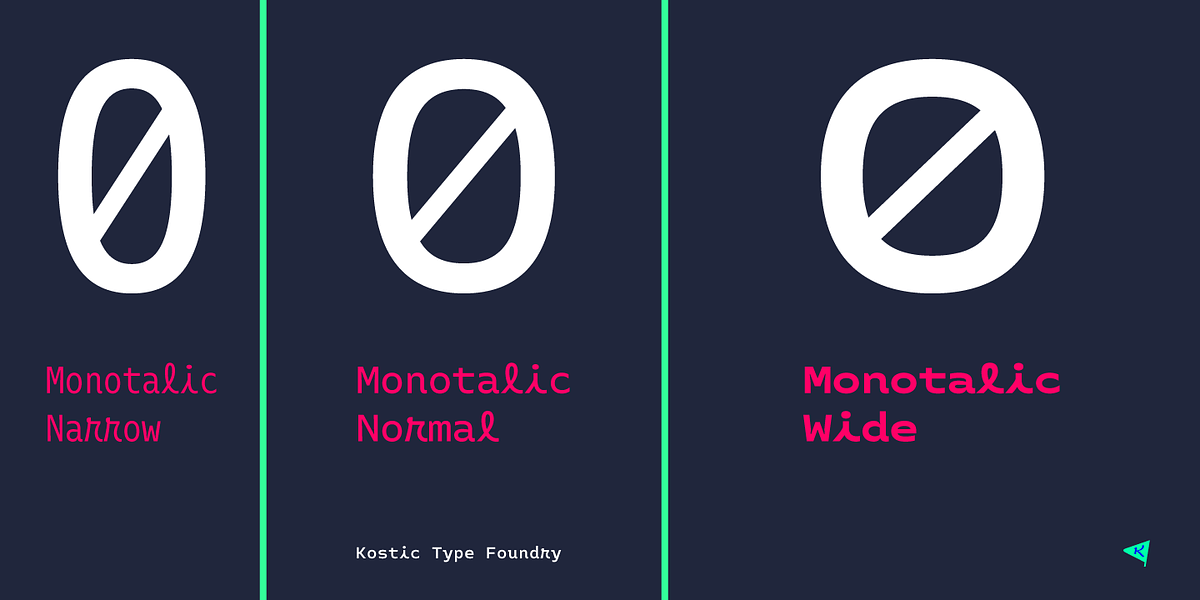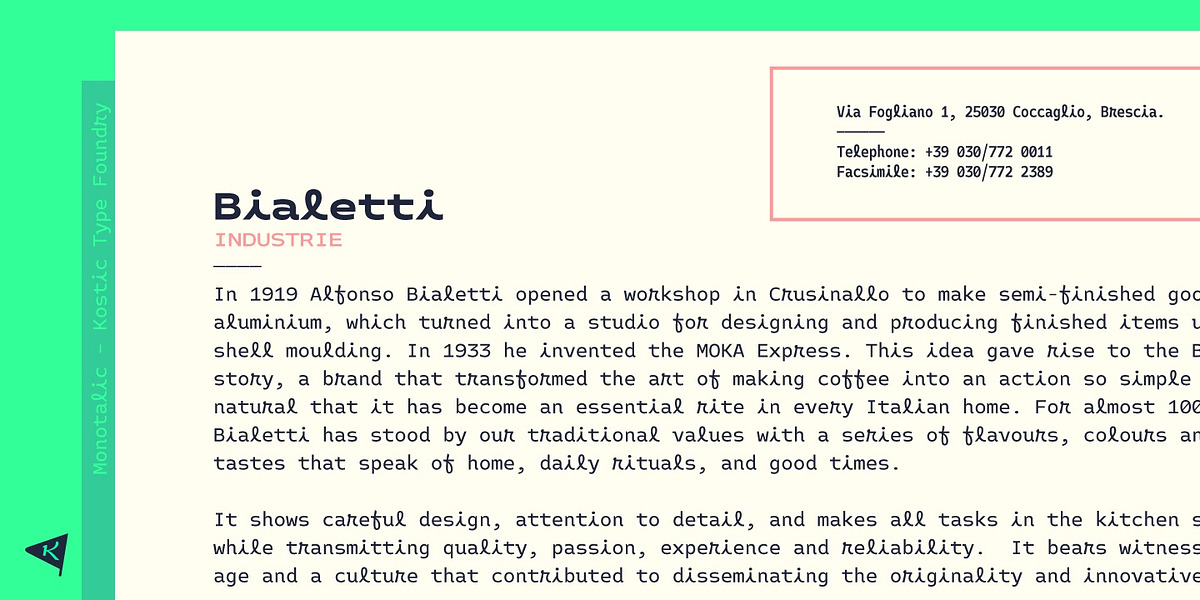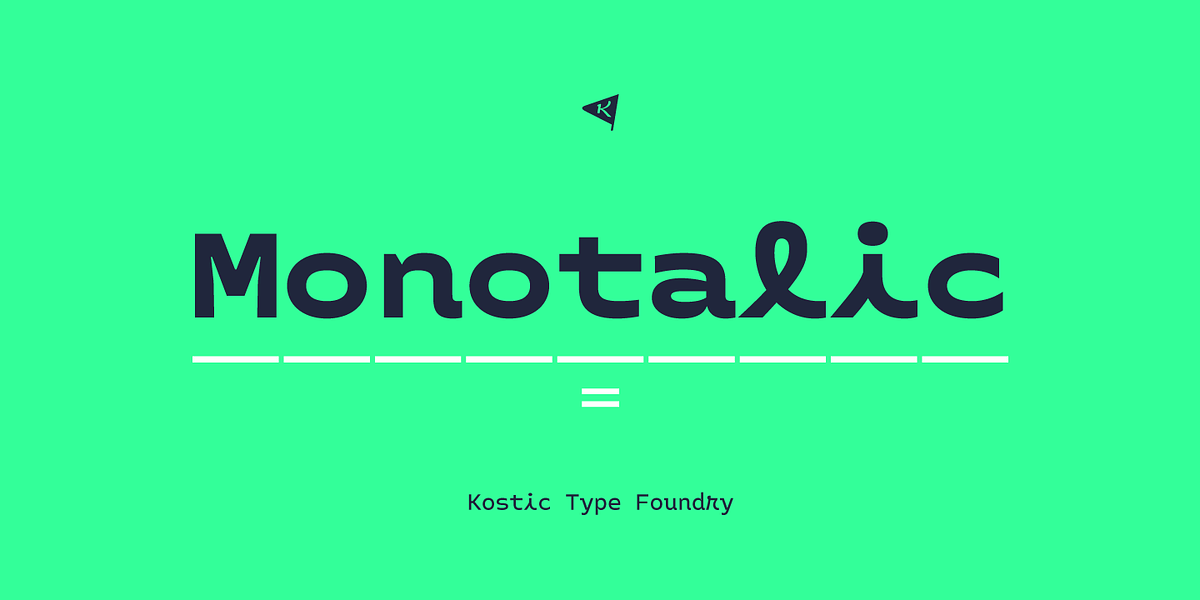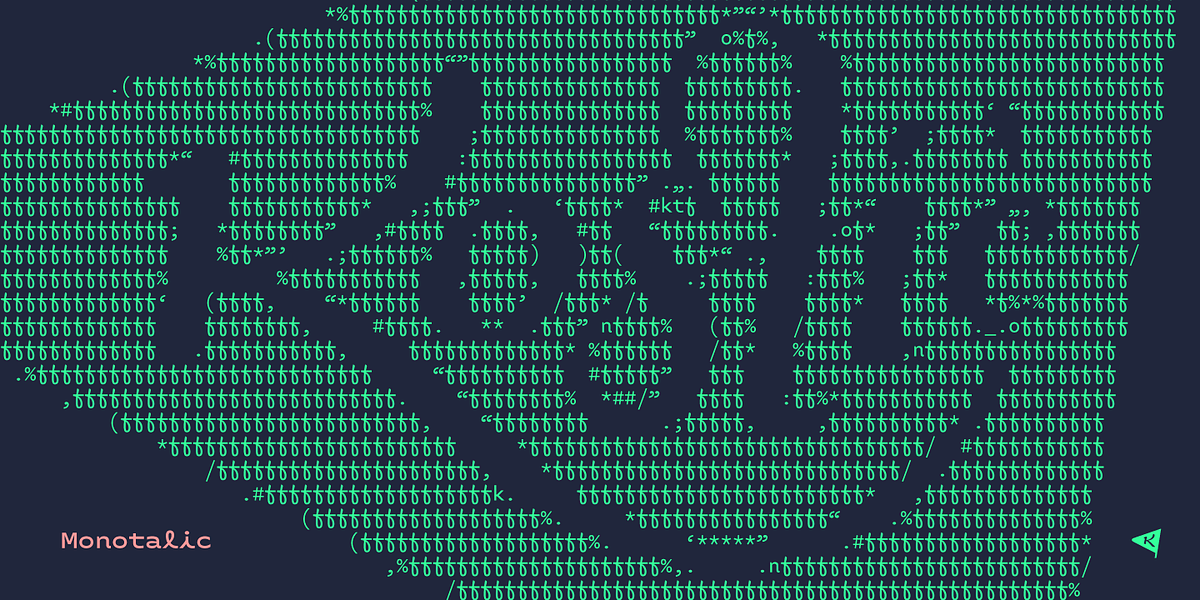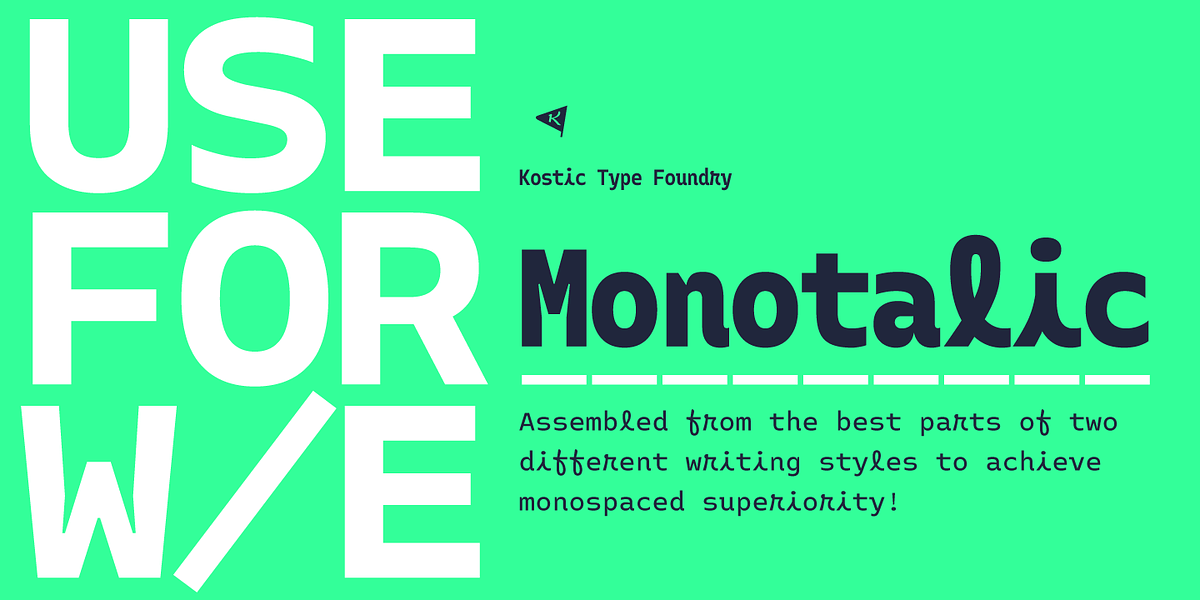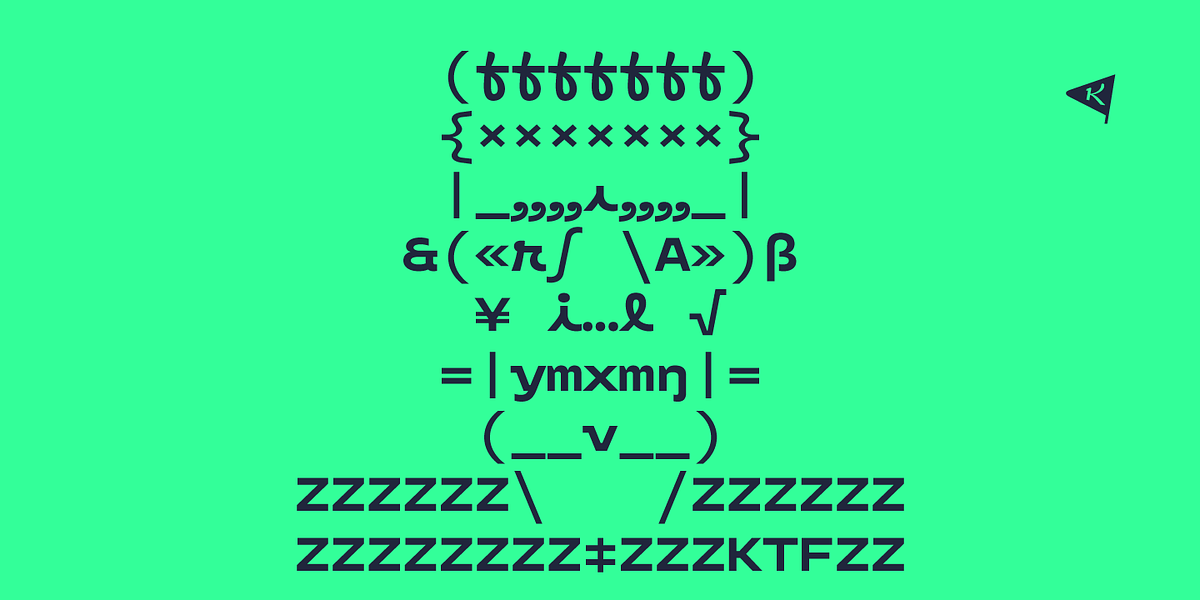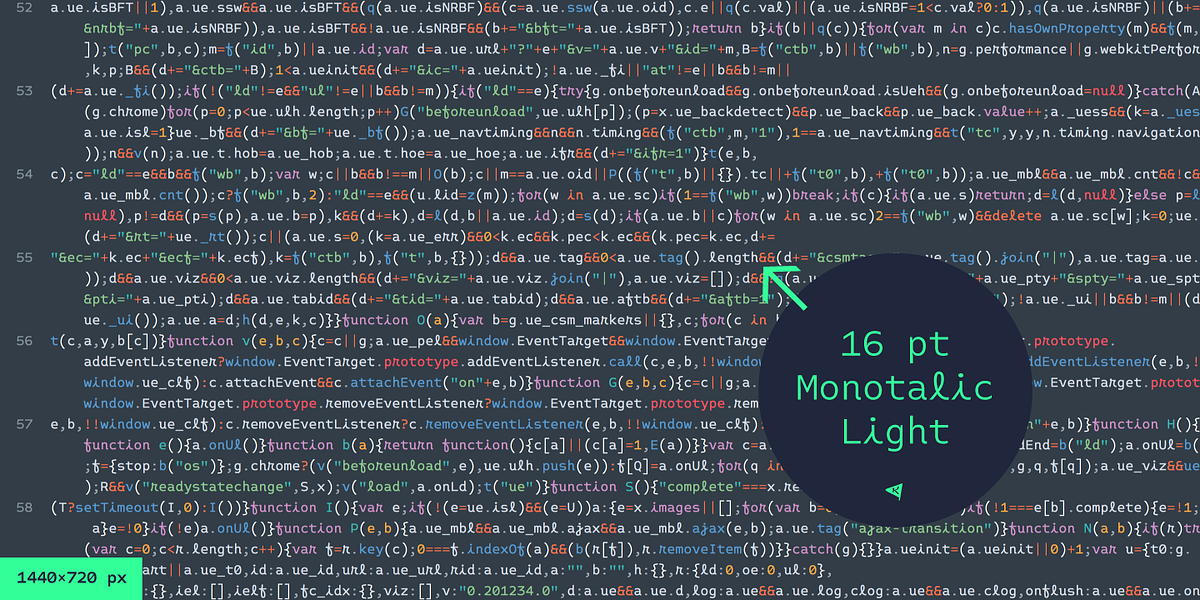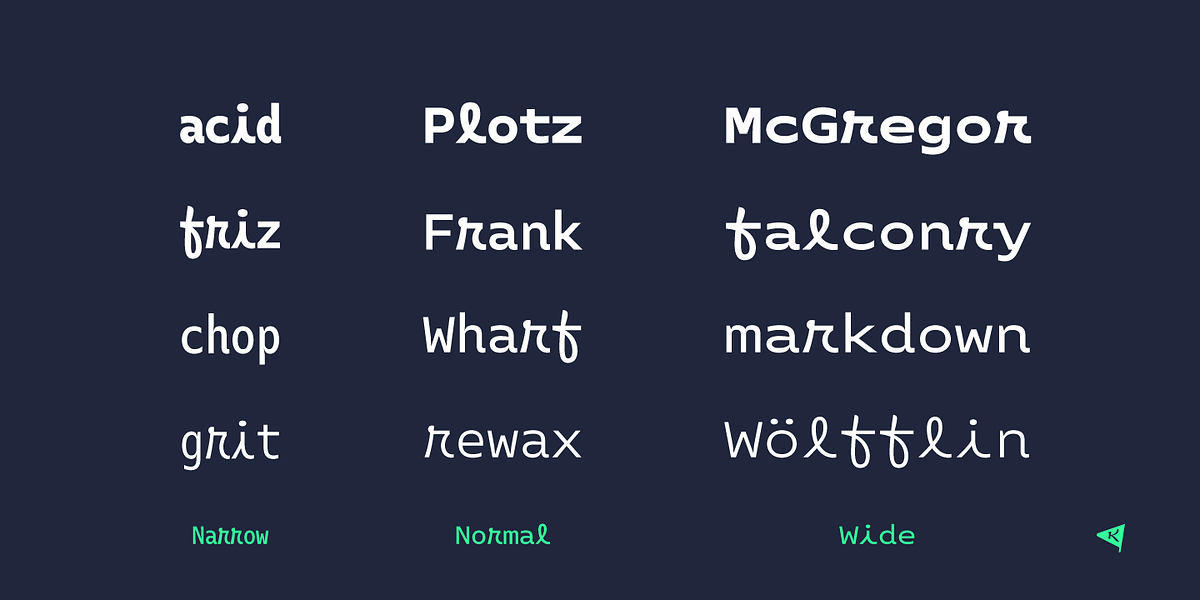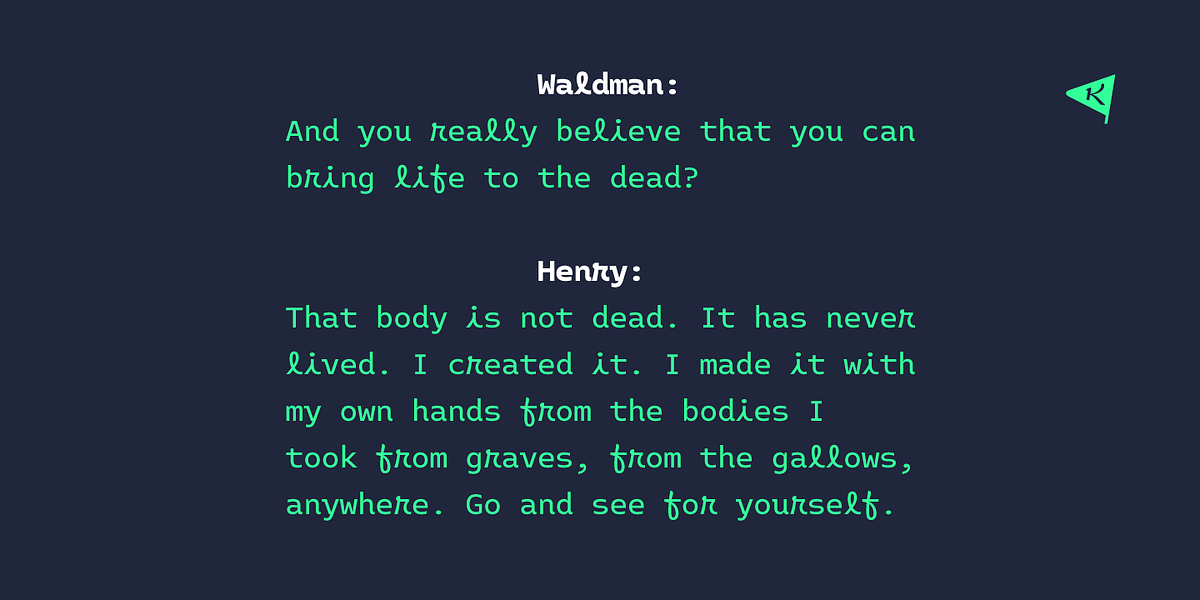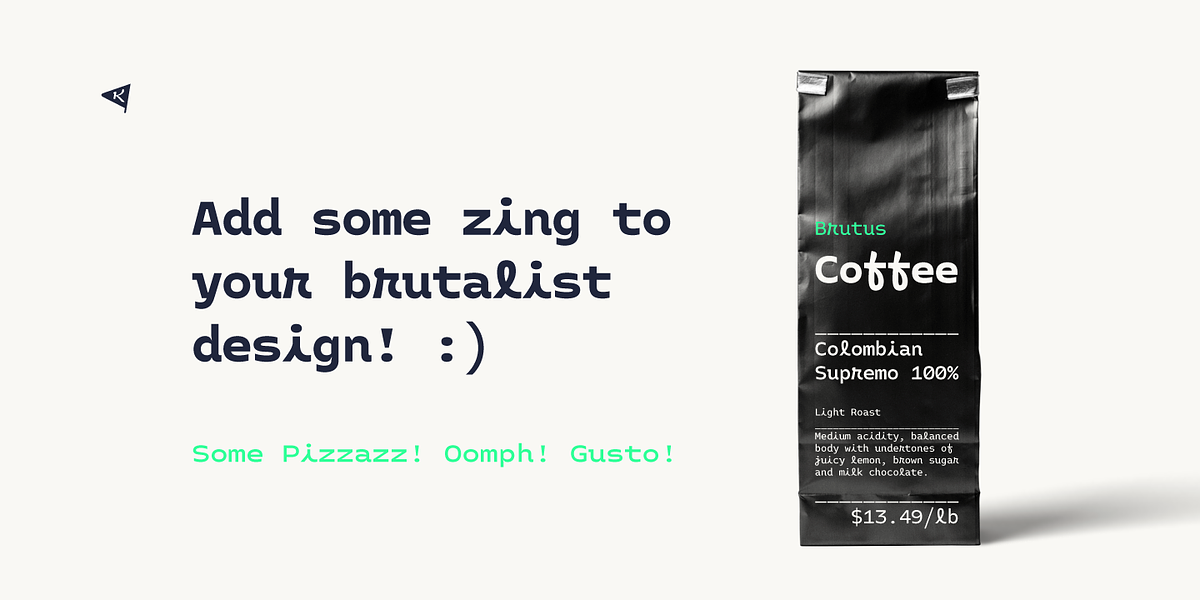
Monotalic
Monotalic is a monospaced typeface designed to address the common issue of filling empty space around narrow lowercase letters in fixed-width fonts. It achieves this by employing a cursive style for these characters, allowing for better stroke distribution within the fixed width. While cursive writing can sometimes lack legibility, Monotalic aims to strike a balance between cursive fluidity and Roman upright readability. The font comes in three widths (condensed, normal, extended) and four weights (thin, regular, bold, black), offering flexibility for different screen resolutions and background colors commonly found in code editors.